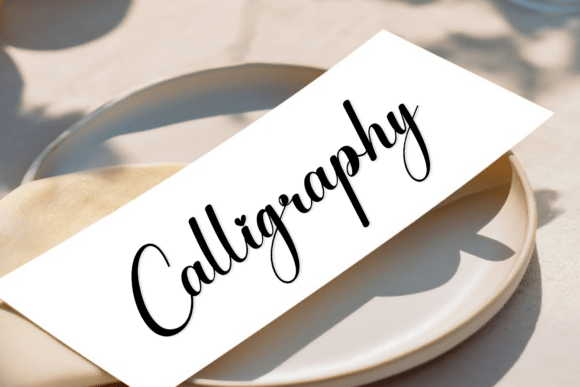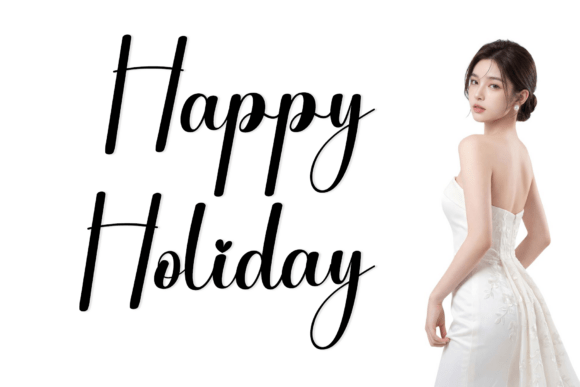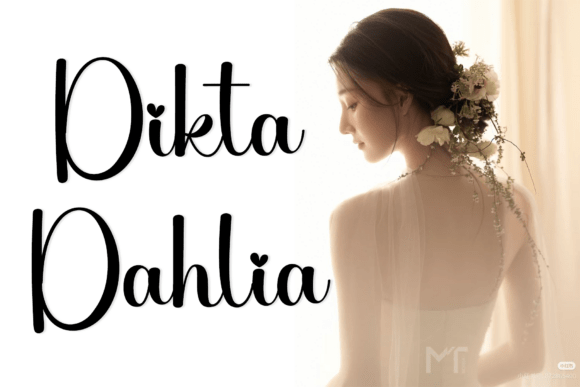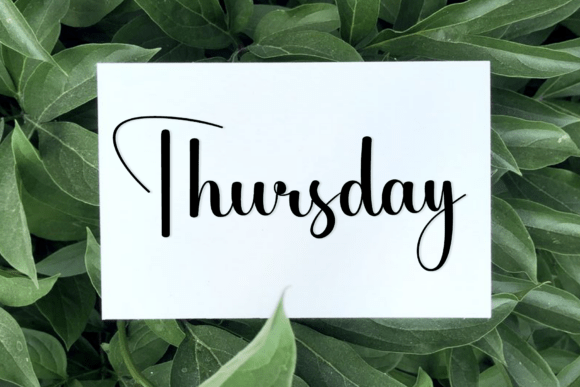
The Amara Birthday Font: Elevating Your Designs with Elegance and Flair
I still remember the design project that led me to discover the Amara Birthday font. I was working on a branding campaign for a boutique bakery, and I needed a font that would convey a sense of warmth, sophistication, and artisanal charm. After hours of scouring font libraries and testing various options, I stumbled upon Amara Birthday – and it was love at first sight! ✨
• ✨ Sweeping, looping ascenders that add a touch of elegance and artistry to any design
• ✅ Perfect balance of calligraphic style and warm, organic aesthetic – ideal for artisanal food branding, boutique product packaging, and upscale lifestyle marketing
• 🎨 Versatile and highly customizable with OpenType features, glyphs, and stylistic alternates
• ⚠️ Limited use of uppercase letters – best used for titles, headings, or emphasis
• 🤔 Requires some practice to master the use of OpenType features – but trust me, it’s worth it!
The Story Behind Amara Birthday
Amara Birthday was designed by a talented typographer who drew inspiration from traditional calligraphy and hand-lettering techniques. The goal was to create a font that would evoke a sense of warmth, elegance, and artisanal charm – perfect for designers, crafters, and creative hobbyists looking to add a touch of sophistication to their projects.
Author pinkmeca
Q: What makes Amara Birthday unique?
A: Amara Birthday’s sweeping, looping ascenders and perfect balance of calligraphic style and warm, organic aesthetic make it a standout font for artisanal food branding, boutique product packaging, and upscale lifestyle marketing.